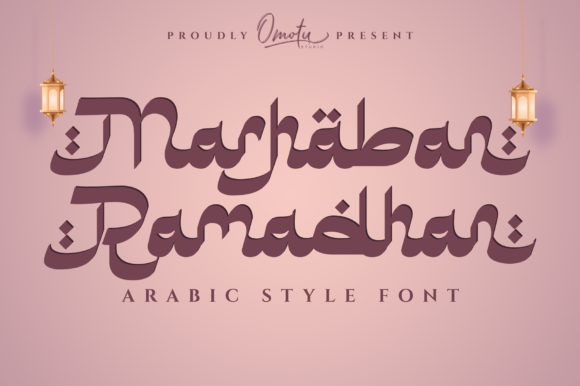
Journey into the captivating world of Marhaban Ramadhan, a display font that draws inspiration from the rich tapestry of Arabic calligraphy. Adorned with intricate details and sweeping curves, this font exudes a timeless elegance that will elevate your designs to new heights.
Crafted by the skilled hands of Omotu, Marhaban Ramadhan is a visual symphony that blends tradition with innovation. Its meticulously designed characters dance across the page, creating a sense of harmony and balance that will leave you breathless.
Step into a realm where creativity flourishes and imagination knows no bounds. With Marhaban Ramadhan as your trusted companion, you'll embark on a typographic adventure that will redefine your design horizons. This font is not merely a collection of letters; it's an artistic expression that will transform your words into captivating works of art.
Marhaban Ramadhan is not just a font; it's an experience. It's an invitation to explore the boundless possibilities of design, to break free from the ordinary and embrace the extraordinary. Whether you're crafting a research poster that demands attention or a personal project that deserves a touch of flair, Marhaban Ramadhan will be your steadfast companion, guiding you towards typographic excellence.
As you delve deeper into the world of Marhaban Ramadhan, you'll discover a treasure trove of glyphs and swashes, all meticulously encoded for your ease of use. With just a few clicks, you can unlock a universe of creative possibilities, adding intricate embellishments and flourishes that will make your designs shine.
So why settle for ordinary when you can embrace the extraordinary? With Marhaban Ramadhan by your side, you'll unlock a new level of design prowess, leaving your audience spellbound by the sheer beauty of your creations. Don't just download a font; embark on a journey of typographic exploration that will leave you forever transformed.